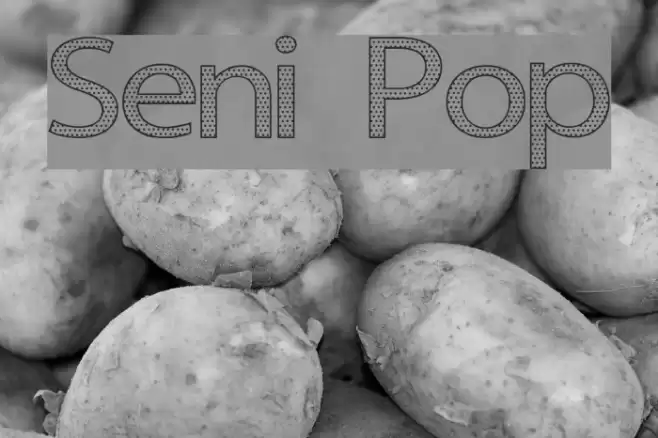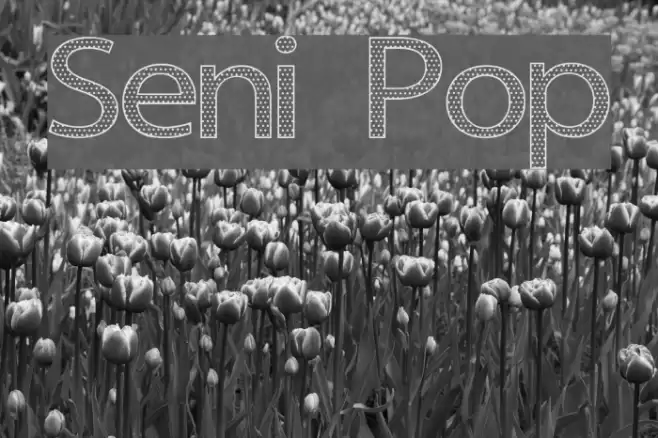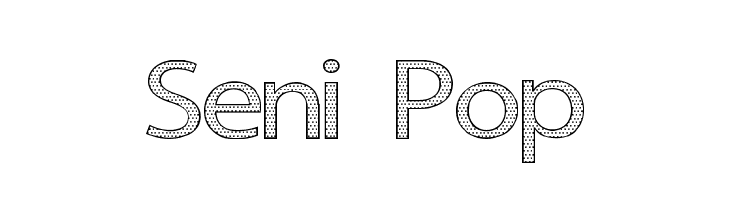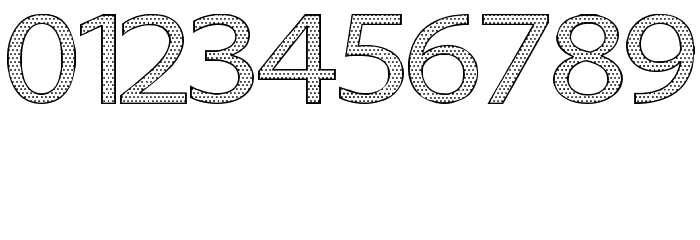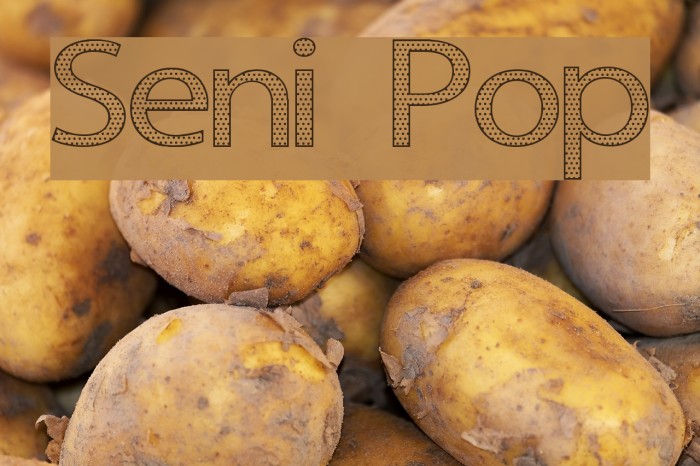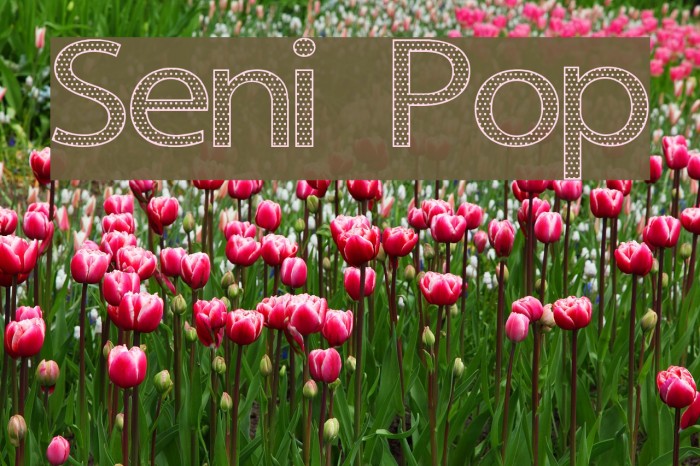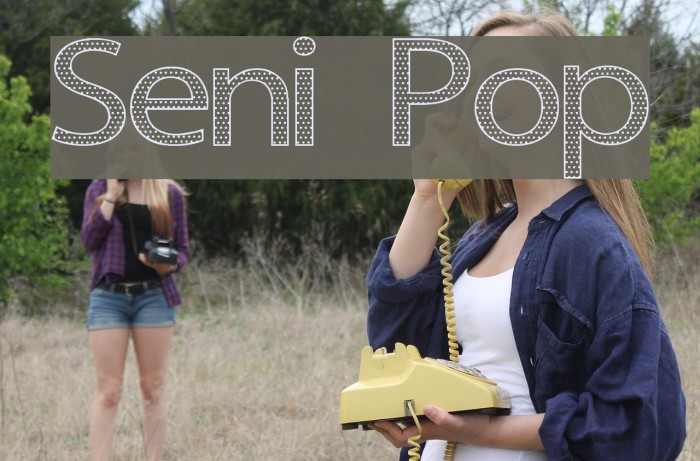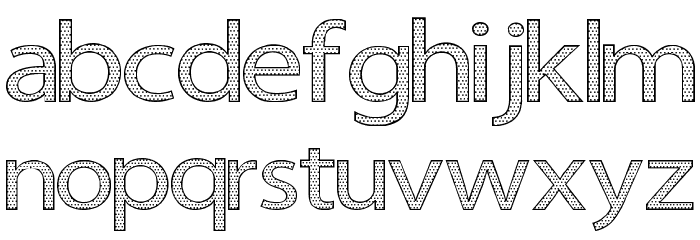
Seni Pop
This font features a playful and decorative style, characterized by its dotted pattern filling each character. The letters are bold and have a uniform thickness, creating a striking visual impact. The uppercase and lowercase letters maintain a consistent design, with rounded edges and a modern flair. The numbers and special characters follow the same aesthetic, ensuring a cohesive look across all elements. This font's unique design makes it stand out, offering a fun and engaging appearance suitable for various creative projects.
A bold, decorative font with a dotted pattern and modern style.
- Proposed Projects: Ideal for children's books, playful branding, posters, and creative invitations.
- Use Case: Logos, Headlines, Posters